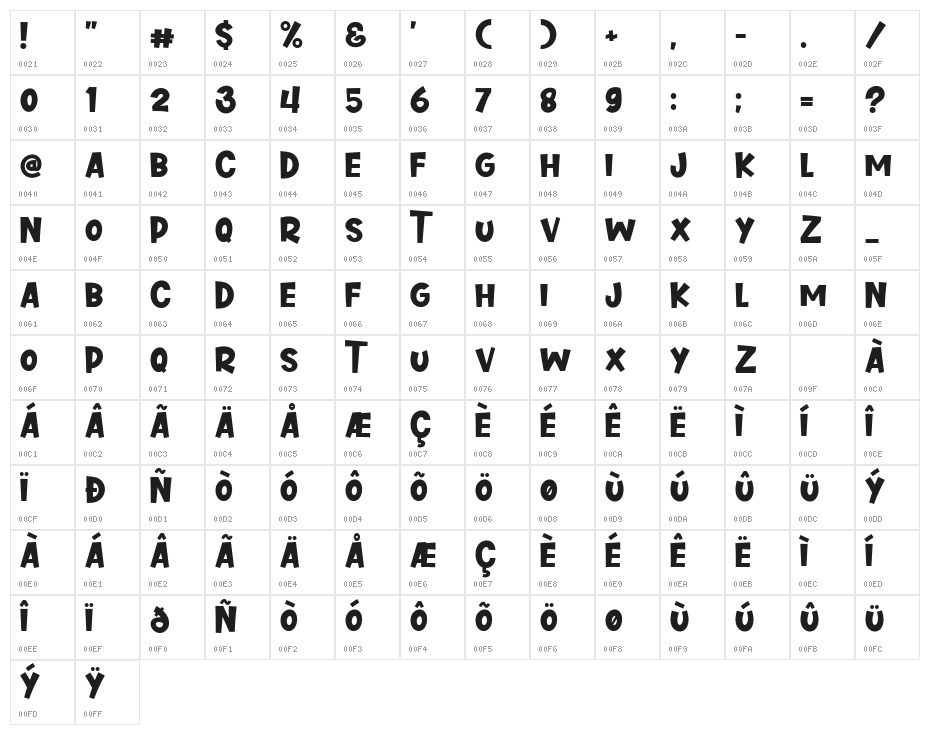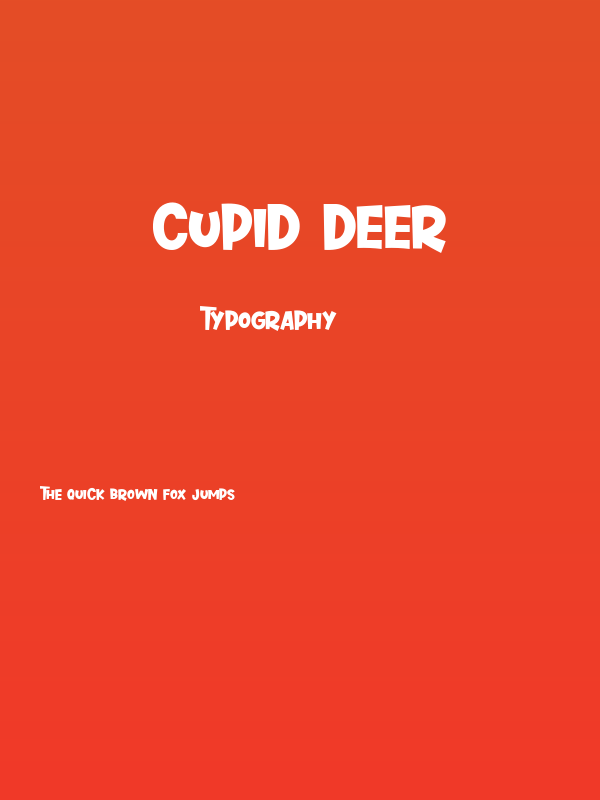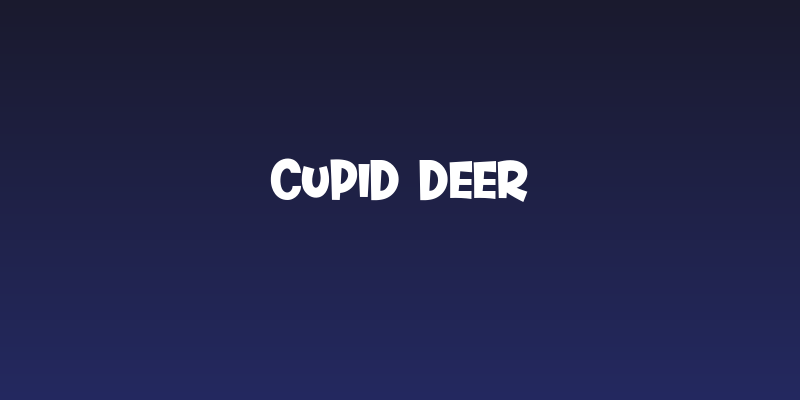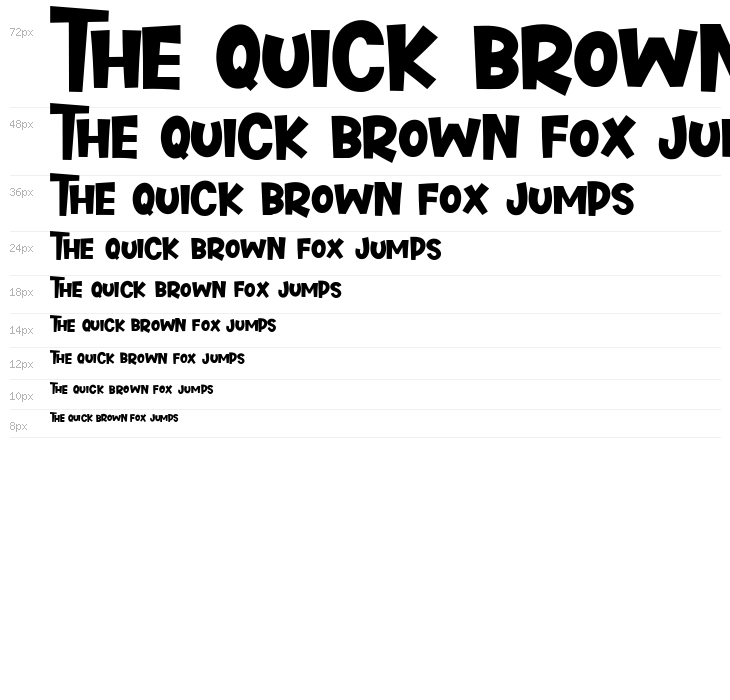
Cupid Deer Font
Cupid Deer Description
This font features a bold and playful style with exaggerated curves and a slightly irregular baseline, giving it a whimsical and energetic appearance. The characters are thick and rounded, with a hand-drawn feel that adds a touch of personality and charm. The uppercase and lowercase letters are consistent in their playful design, making it suitable for projects that require a fun and informal tone. The numbers and special characters maintain the same lively aesthetic, ensuring a cohesive look across all text elements.